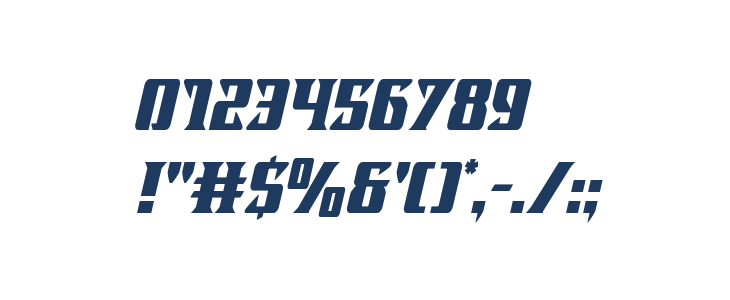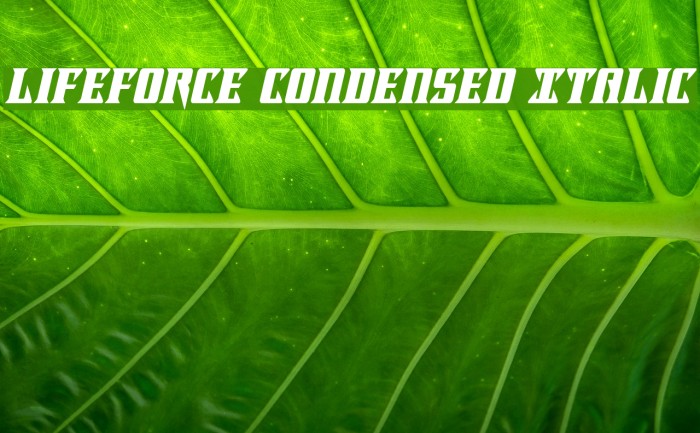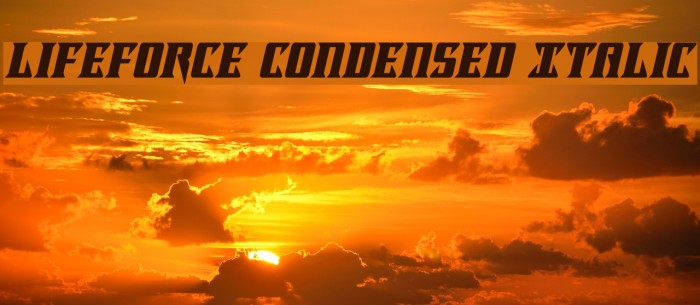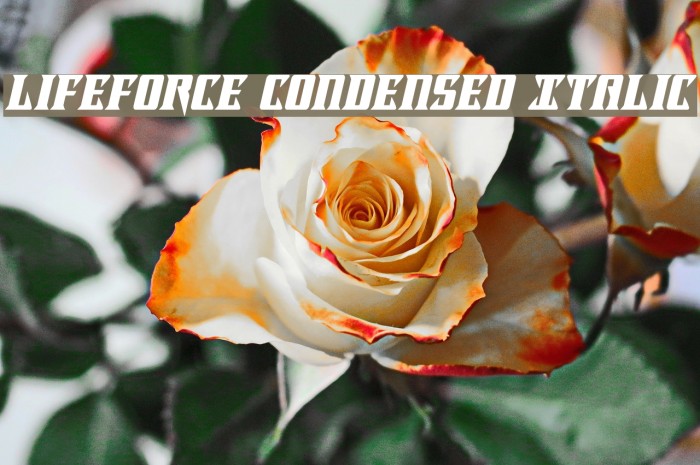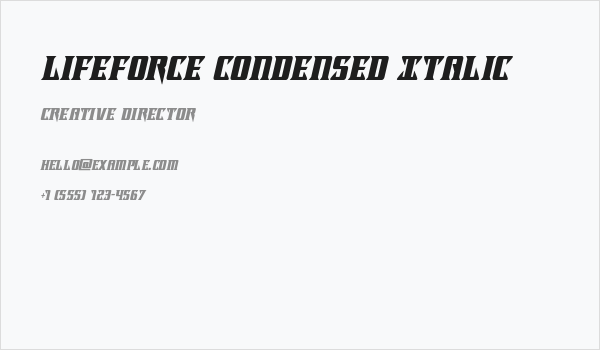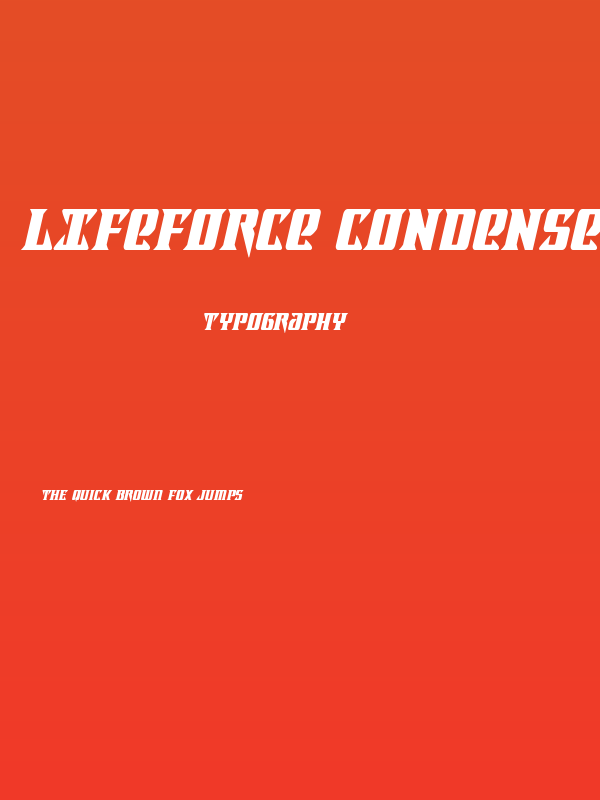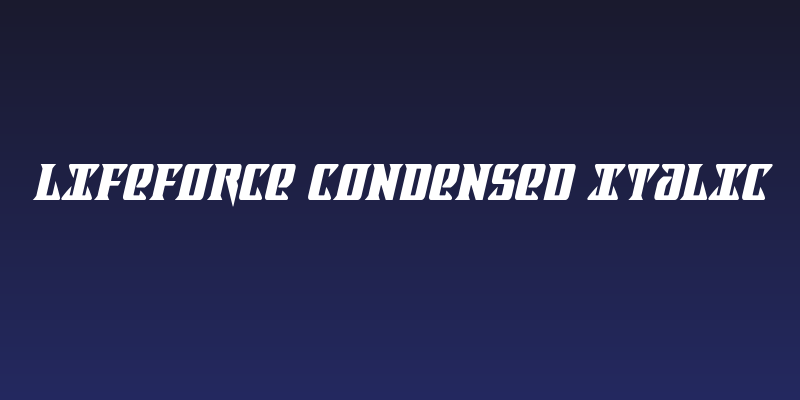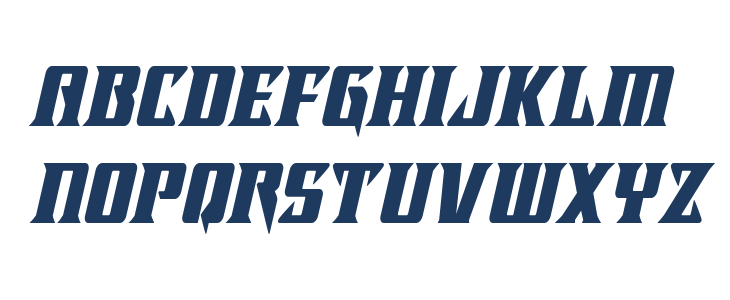
Lifeforce Condensed Italic Font
Lifeforce Condensed Italic Description
This font features a bold and dynamic design with a condensed and italicized style, giving it a sense of movement and urgency. The characters are sharply angled, with strong diagonal lines that create a sense of forward motion. The uppercase and lowercase letters maintain a consistent height, enhancing the uniformity of the typeface. The numbers and special characters are designed to match the boldness and angularity of the letters, ensuring a cohesive look across all elements. This font's unique style makes it stand out, making it suitable for projects that require a strong visual impact.
Proposed ProjectsIdeal for sports branding, action movie posters, video game titles, and dynamic advertising campaigns.